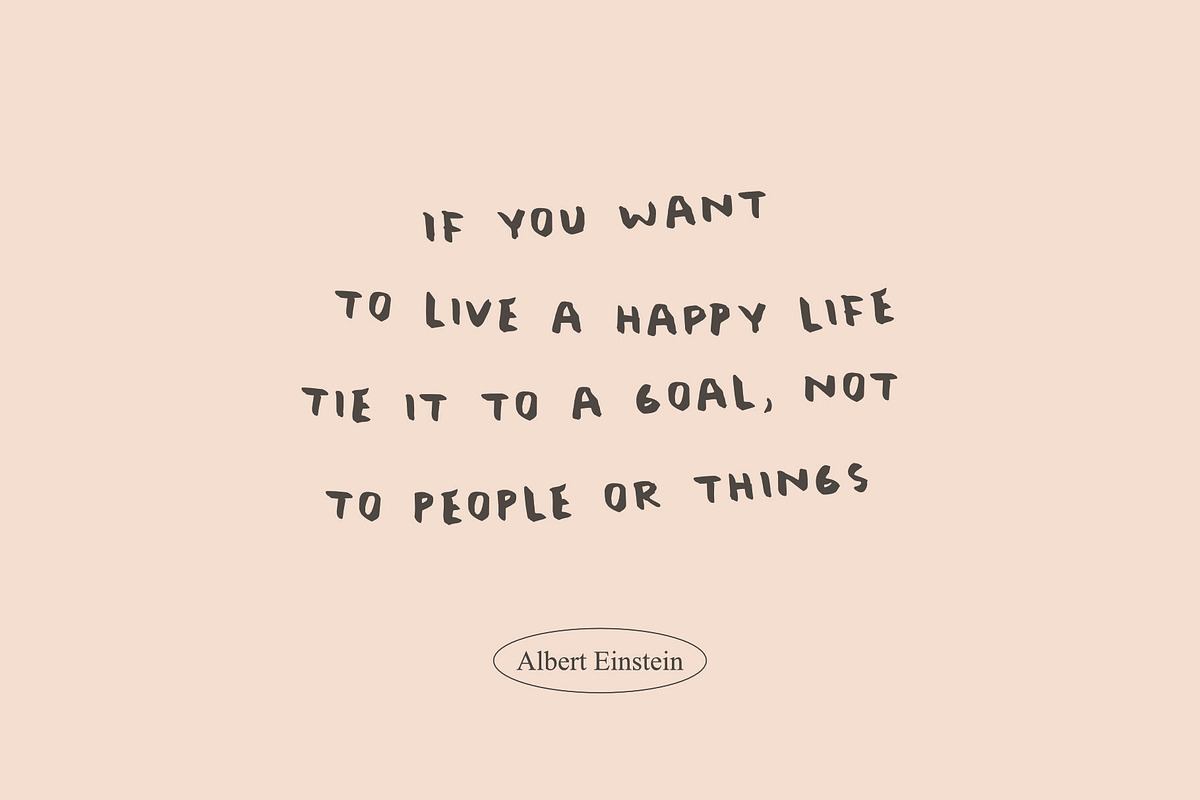
Lyrics | A Quotable Font Free Download
Lyrics | A Quotable Font Free Download is a stylish and elegant typeface designed to capture the essence of handwritten quotes with a refined touch. Featuring flowing lines, gentle curves, and a casual yet polished look, this font is perfect for creating inspirational quotes, social media graphics, greeting cards, branding, and more.
Its contemporary yet classic appeal makes it ideal for a wide range of creative projects that require a personal, artistic touch. Whether you’re working on a book cover, a website, or marketing materials, Lyrics | A Quotable Font Free Download brings beauty and warmth to your typography.